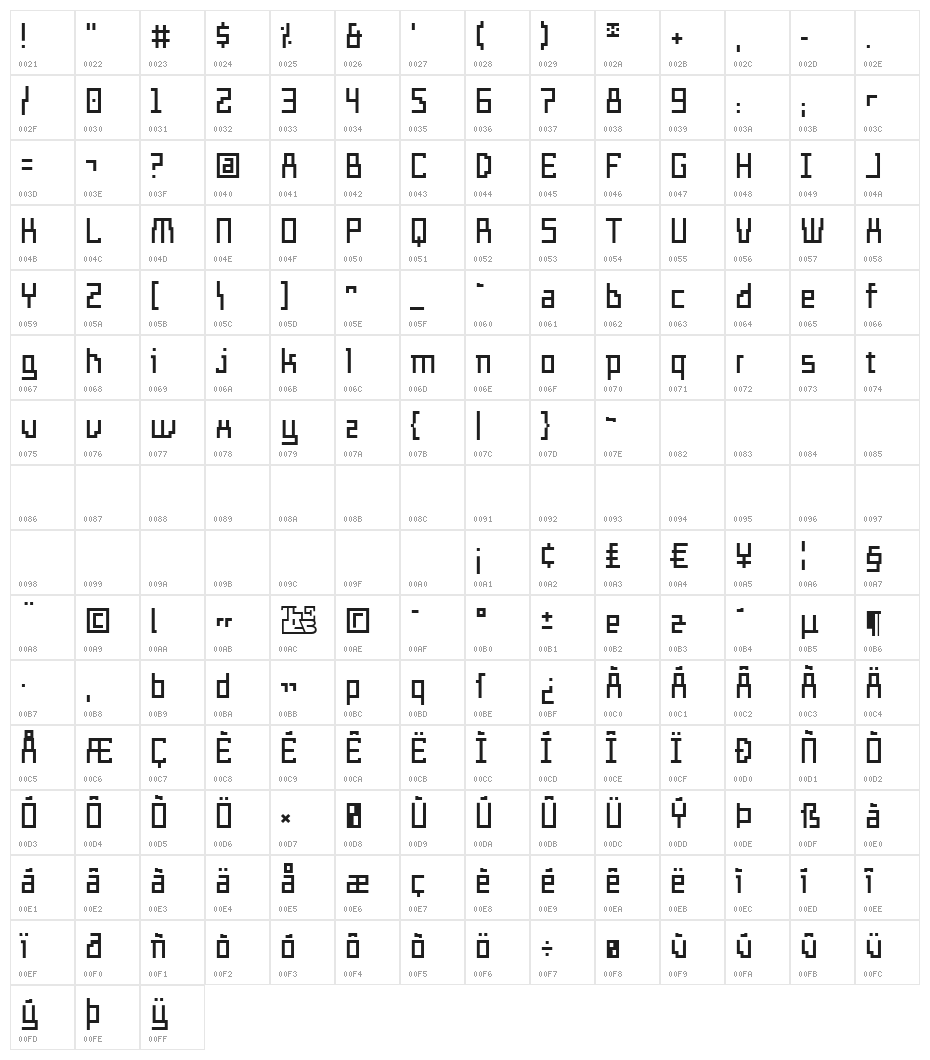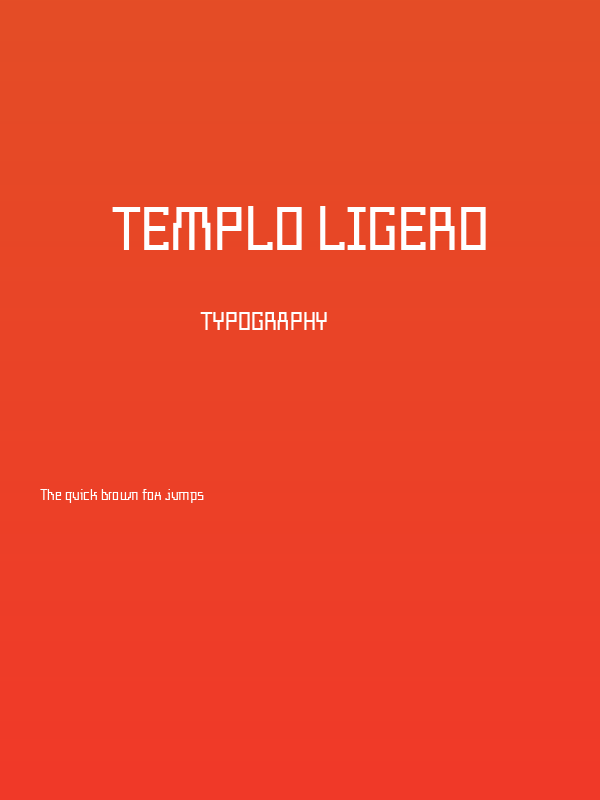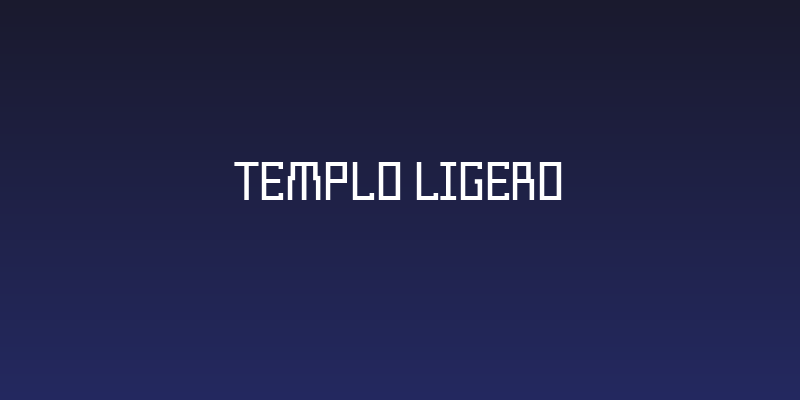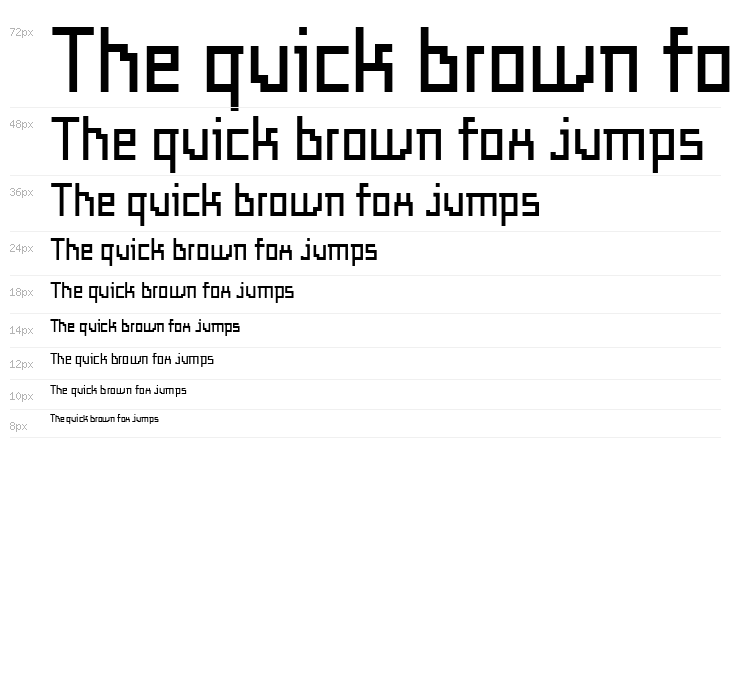
Templo Ligero Font
Templo Ligero Description
This font features a geometric, blocky design with a pixelated aesthetic reminiscent of early digital displays. The characters are uniformly structured with consistent line thickness, giving it a monospaced appearance. The uppercase and lowercase letters maintain a similar width, enhancing its uniformity. The numerals and special characters follow the same design principles, ensuring a cohesive look across all glyphs. The font's simplicity and clarity make it highly legible, even at smaller sizes. Its retro, digital style is ideal for projects that aim to evoke a sense of nostalgia or a tech-oriented theme.
Overall StyleRetro, Digital
Use CaseHeadlines, Logos, Digital displays
Proposed ProjectsIdeal for video game design, tech-themed posters, digital art projects, and retro-style branding.